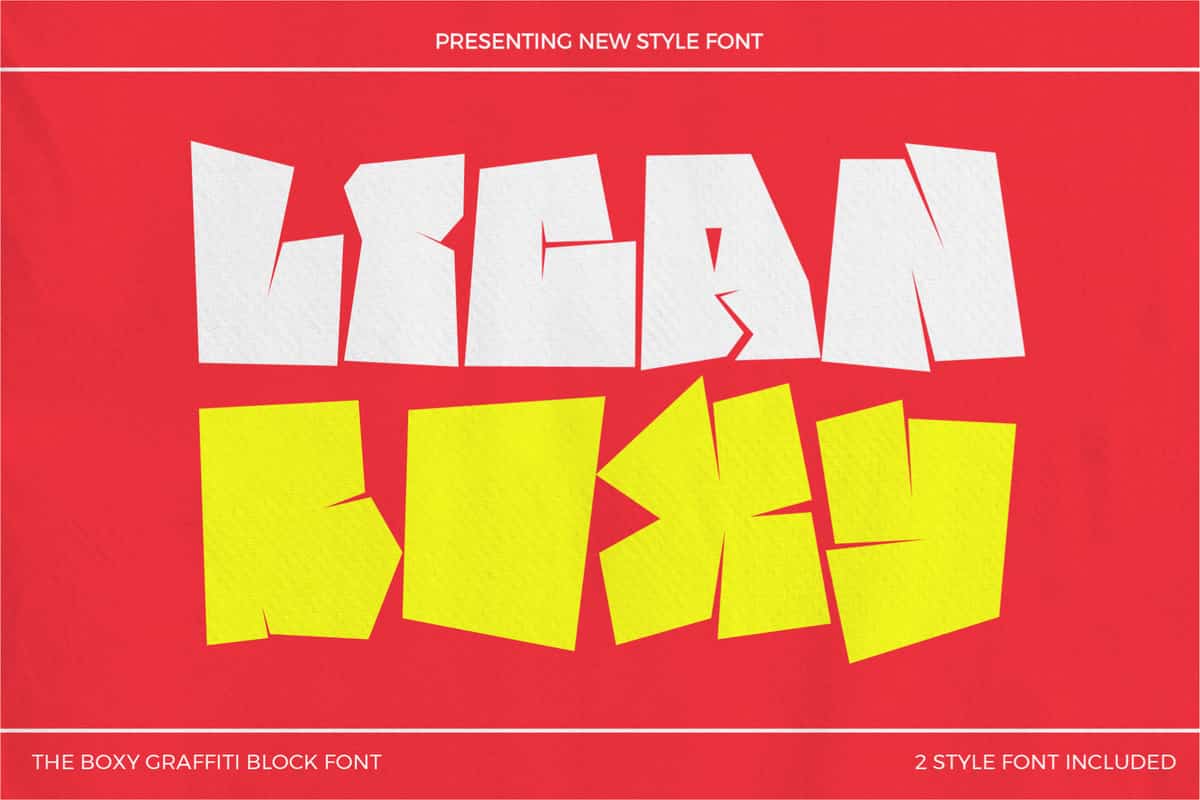
Lican Boxy Block
Lican Boxy is a bold and energetic boxy graffiti display font inspired by authentic street art, urban culture, and modern streetwear aesthetics. Featuring chunky geometric letterforms with handcrafted imperfections, this font delivers a powerful visual impact while maintaining excellent readability. Its distinctive block style captures the raw spirit of graffiti lettering, making it perfect for designers who want to create eye-catching typography with a strong urban personality. This font inclu